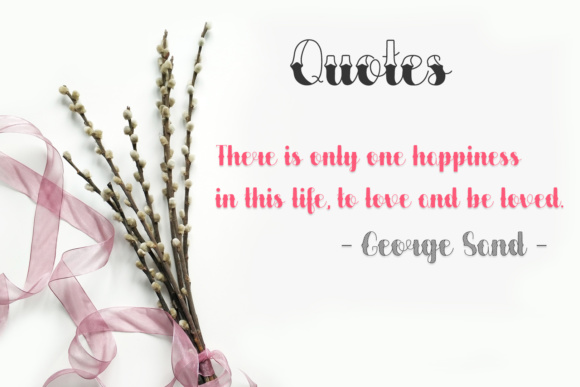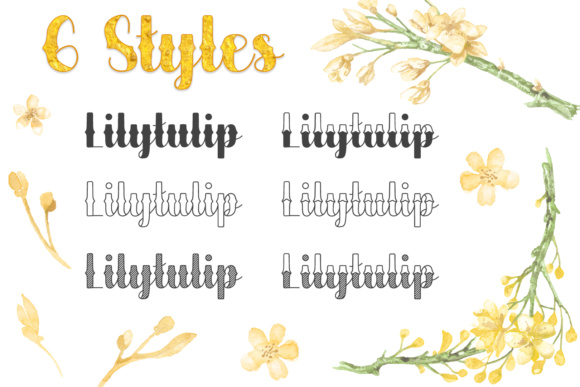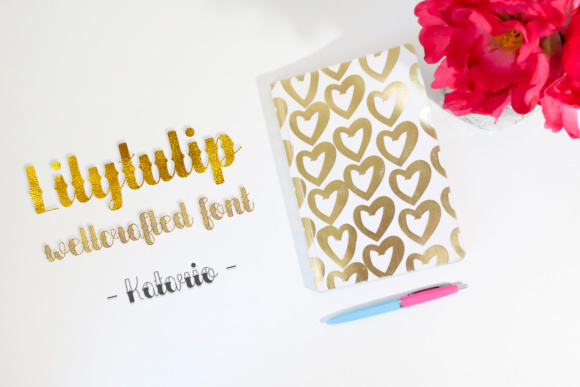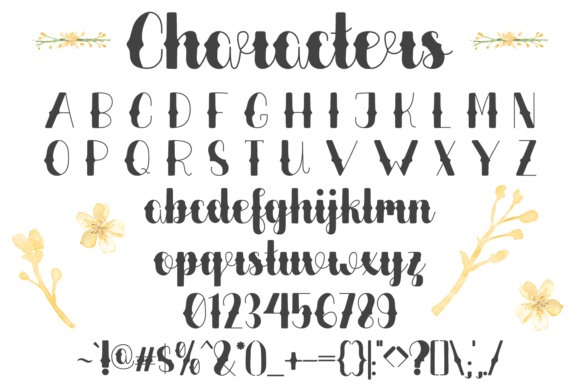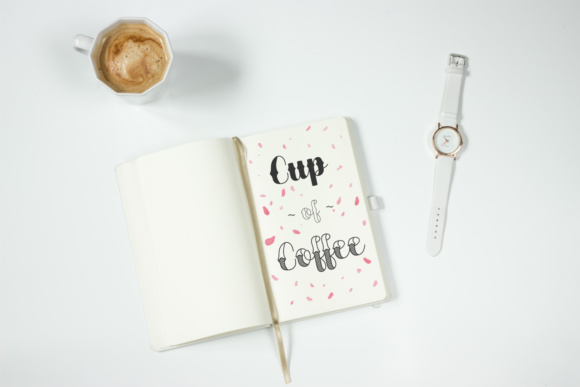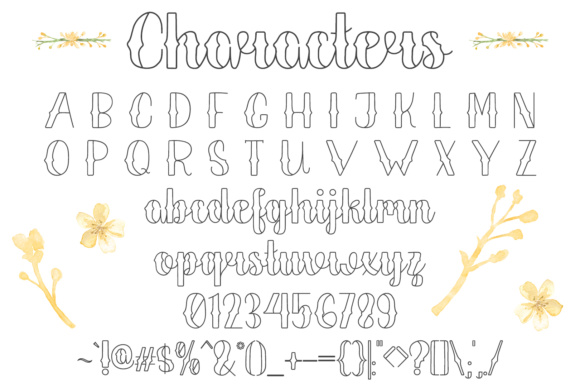
Introduction to Lilytulip Script Font
As a designer, you’ve likely found yourself stuck at the most crucial moment of a creative project – the moment when the perfect font can make all the difference. I recall it like it was yesterday: staring at a blank canvas, trying to convey the essence of a vintage-inspired design, but the words just weren’t coming together. It wasn’t until I stumbled upon the Lilytulip Script Font that my design breathed new life.
With its unique blend of vintage charm and elegant sophistication, the Lilytulip Script Font has become an indispensable design resource for creatives. Whether you’re working on a free download project or a high-end commercial design, this beautiful script font is sure to elevate your work to new heights. Plus, its versatility makes it perfect for use on transparent backgrounds, allowing your design to shine through.
Key Features of Lilytulip Script Font
- Lilytulip Script Font is a high-quality design resource ideal for creative projects that require a beautiful, handwritten script.
- The unique characteristics of Lilytulip Script Font include its elegant and cursive design, perfect for adding a touch of sophistication to any creative project.
- The font is highly versatile and can be used in a variety of design applications, including invitations, greeting cards, and wedding stationery.
- Lilytulip Script Font is a high-quality design resource that is sure to elevate any creative project, making it a must-have for designers and artists.
Honest Review: Lilytulip Script Font
I recently had the chance to work with the Lilytulip Script Font, and I must say it’s been a great addition to my design resource collection. ✨ This beautiful script font is perfect for creating a touch of elegance in any creative project. Its high quality is evident in its smooth, flowing lines and intricate details.
One of the things I appreciate about this font is its versatility. It’s suitable for a wide range of projects, from wedding invitations to branding materials. The free download option is also a huge plus, making it accessible to designers of all levels.
Here are some of the key features that I love about Lilytulip Script Font:
- High-quality design with smooth lines and intricate details
- Suitable for a wide range of creative projects
⚠️ However, I do have to mention that the font can be a bit challenging to read in certain sizes, especially when used for large blocks of text. But overall, this is a minor limitation in an otherwise excellent font.
Overall, I’m thoroughly impressed with the Lilytulip Script Font. It’s a valuable addition to any designer’s toolkit, and I highly recommend it for any creative project that requires a touch of sophistication and elegance.
To get the most out of the Lilytulip Script Font, use it with a transparent background to create a beautiful and eye-catching effect. Experiment with different font sizes and colors to add depth and interest to your designs.
The Lilytulip Script Font is perfect for a variety of creative projects, including:
Branding and logos
Social media graphics and posts
Brochures and flyers